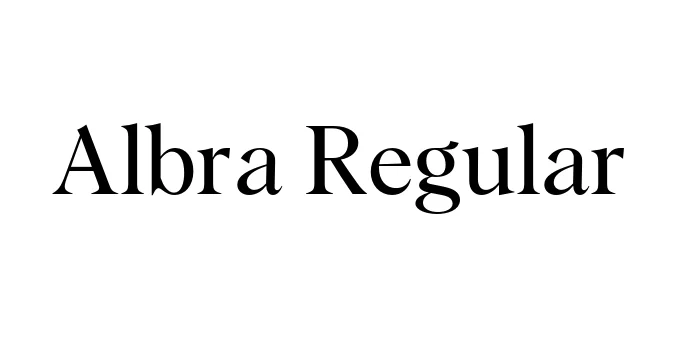
Albra Regular
Albra Regular is a sophisticated and high-contrast serif typeface that seamlessly blends classical proportions with contemporary design sensibilities. Developed by the boutique foundry BumbumType, this font family is characterized by its elegant curves, sharp serifs, and a distinctive personality that exudes both luxury and approachability. The Regular weight provides a balanced rhythmic flow, making it exceptionally legible while maintaining a high level of artistic detail that captures the viewer's attention instantly.
As a cornerstone of the larger Albra collection, the Albra Regular weight is widely celebrated in the worlds of high-fashion editorial, premium packaging, and modern digital branding. Its versatility allows it to function beautifully in large-scale display settings, such as headlines and logos, as well as in smaller text blocks where its refined character adds a touch of sophistication. It remains a top choice for designers looking to infuse their projects with a timeless, high-end aesthetic.
Albra Regular Best Uses
Ideal for creating high-end luxury logos and premium brand identity systems.
Perfect for sophisticated magazine headlines and artistic editorial layouts.
Highly effective for stylish landing pages and decorative web headings.